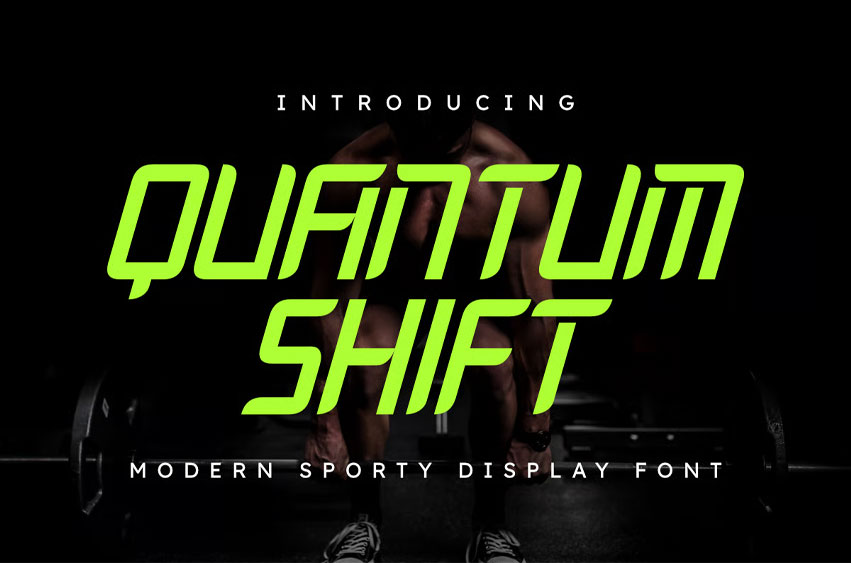
Quantum Shift Font is a display font meticulously crafted to exude energy and dynamism. With a strong, sporty aesthetic, this font is perfect for projects demanding a fast, modern, and spirited feel.
Each character is designed with sharp, geometric details, giving it a futuristic appeal while maintaining excellent legibility. The precise line weights and angles create a robust and bold presence, making it an ideal choice for headlines, logos, or promotional materials that aim to capture attention.
• Sports logo design
• Esports branding
• Athletic event posters
• Dynamic product packaging
• Website or app headlines
• Video games and other interactive media